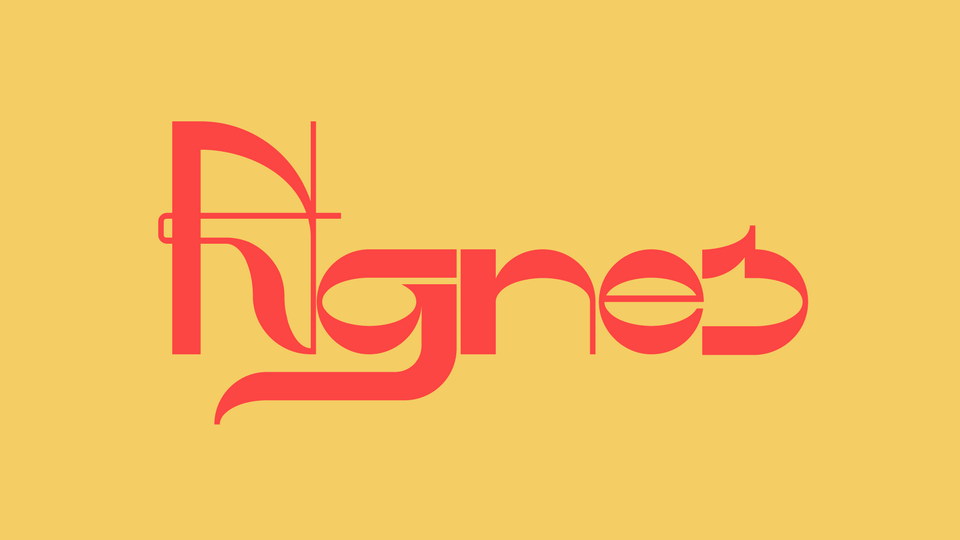
Feb 8, 2025DisplayAgnes Font Agnes is a unique display font inspired by the handwriting. It supports special characters, numbers and Hungarian language too, it has multiple programmed ligatures. Font DetailsDesigned by: Dominik SzabóWebsiteLicense: Free for commercial use Download Agnes FontFile size: 12.92 KBCreated: February 16, 2025Updated: February 16, 2025 Download Explore similar fonts Hollowthorn Font Palm Leaf Font Aztec Line Font Square Baby Font Cenobyte Font ST-Bilibin Font # Creative# Decorative# Unique More fonts by Dominik SzabóOutera FontNeu Neu Font